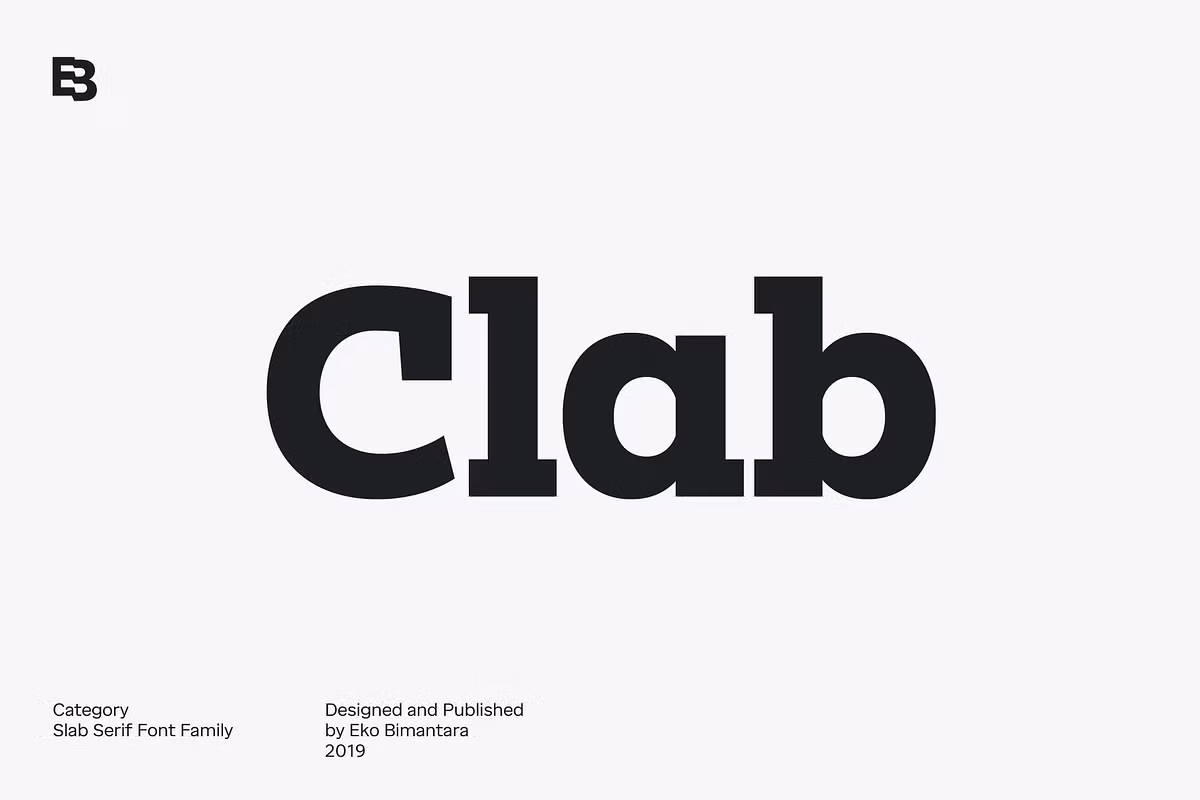
Clab Font Family Free Download
Clab Font Family Free Download is a modern and elegant slab serif typeface designed for versatility and impact. With 18 distinct styles, including weights from Thin to Black and corresponding italics, Clab offers a comprehensive typographic solution for various design projects. Its unique reverse contrast and low contrast strokes make it particularly suitable for branding, packaging, and editorial purposes.
The font's design features short ascenders and descenders, along with low capitals, contributing to its distinctive appearance. Whether you're aiming for a bold headline or a refined body text, Clab provides the flexibility to achieve your desired aesthetic.